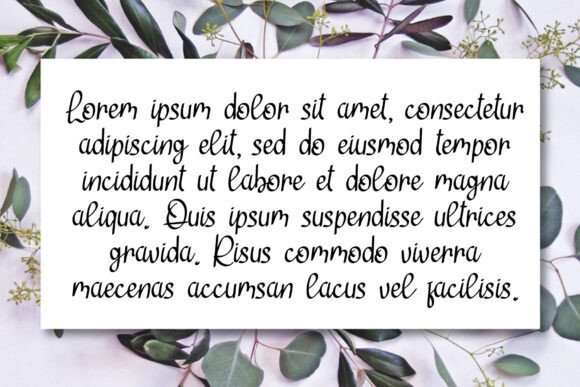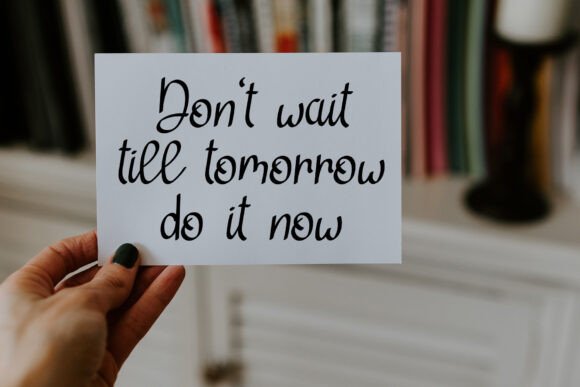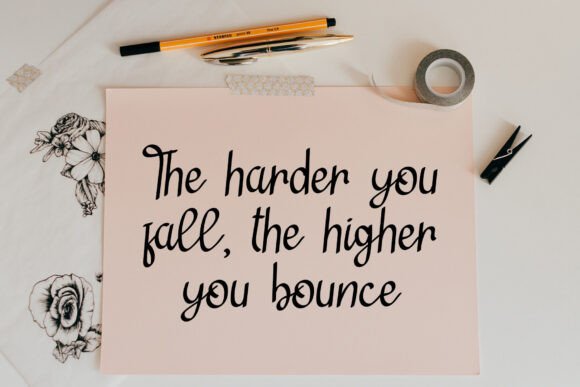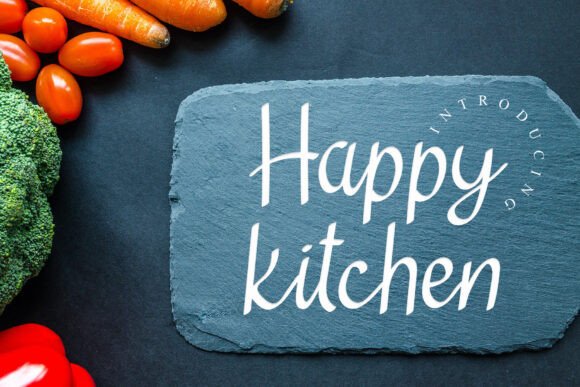
Introducing the Christmas Sweater Font: A Unique and Elegant Handwritten Font
Are you looking for a font that adds a touch of elegance and whimsy to your designs? Look no further than the Christmas Sweater Font! This beautiful font is perfect for designers and crafters who want to create stunning wedding invitations, greeting cards, billboards, logos, business cards, and more.
A Handmade Touch
The Christmas Sweater Font is a unique and elegant font that features a varied baseline, created with a natural, hand-made touch. This means that each letter and character has a distinctive, human feel that sets it apart from more traditional fonts. The result is a font that looks like it was written by hand, with all the charm and character that implies.
Perfect for a Variety of Designs
One of the best things about the Christmas Sweater Font is its versatility. It looks great on a wide range of designs, from wedding invitations and greeting cards to billboards and logos. Whether you’re creating a formal invitation or a playful holiday card, this font is sure to add a touch of elegance and sophistication.
- Unique and elegant design: The Christmas Sweater Font has a distinctive, handmade look that’s sure to set your designs apart.
- Versatile: This font looks great on a wide range of designs, from formal invitations to playful holiday cards.
- Handmade touch: Each letter and character has a natural, human feel that adds charm and character to your designs.
The Christmas Sweater Font is a unique and elegant handwritten font that’s perfect for designers and crafters who want to add a touch of whimsy and sophistication to their designs. With its handmade touch, PUA encoding, and versatility, this font is sure to become a favorite in your design arsenal. So why wait? Download the Christmas Sweater Font today and start creating stunning designs that will leave a lasting impression!